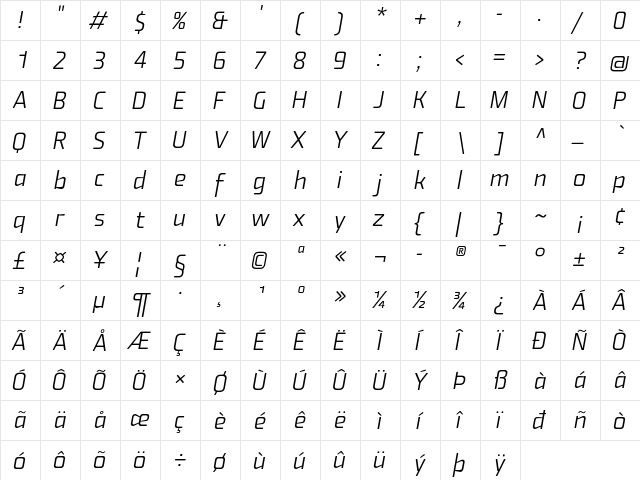
Fishmonger EL Italic
Design Context for Fishmonger EL Typeface
Fishmonger EL takes a measured approach to typography — its balanced proportions and neutral character make it a reliable workhorse for both digital and print work. Its italic angle brings a sense of urgency and motion to the letterforms.
Pro Tip: Use Fishmonger EL for emphasis, pull quotes, and subheadings where its slanted energy can add rhythm to the layout.